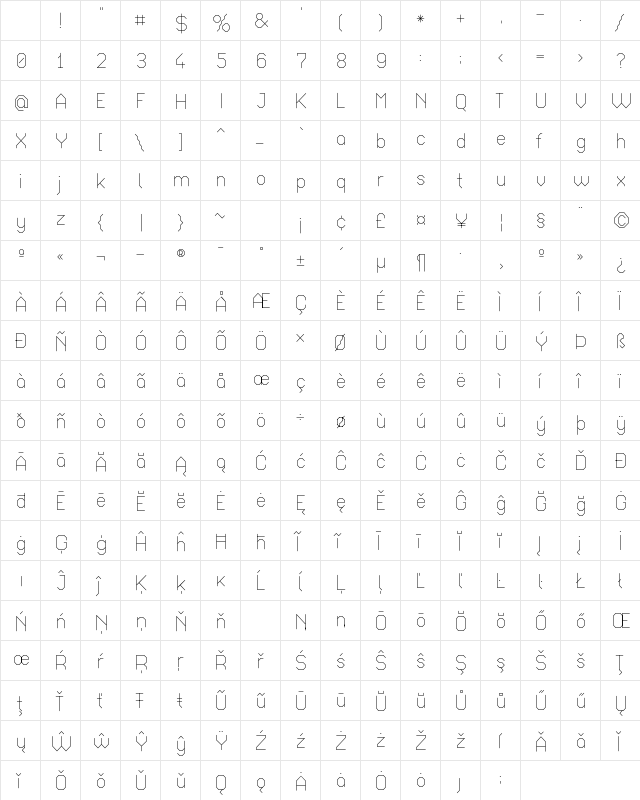
Octagonal Light is a composed and adaptable typeface that performs quietly and consistently across a wide range of design contexts. Its slender proportions lend an understated elegance to any composition.